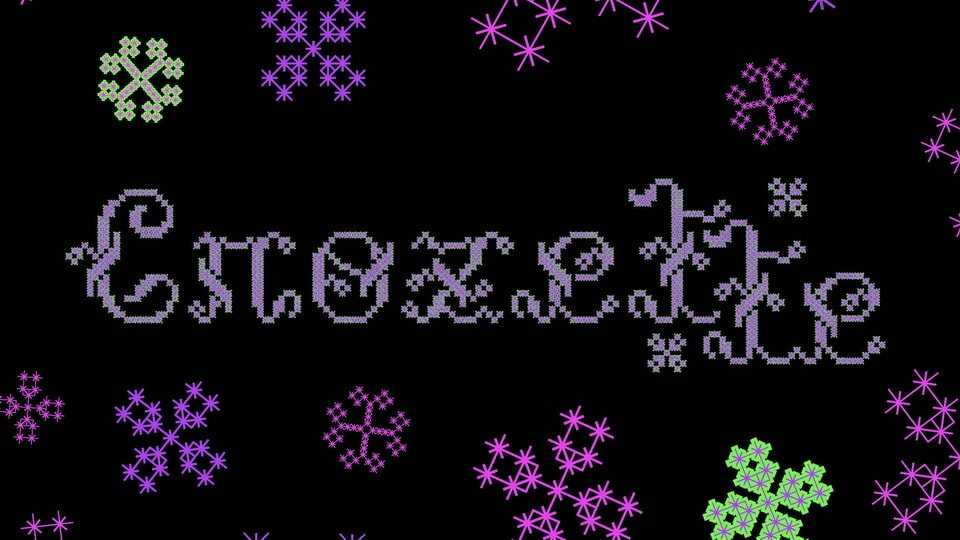
Download Crozet·te font, an inclusive and flowery typeface, inspired by cross-stitch embroidery. With the desire to take these traditional embroidered letters in order to give them new life for original and committed creations, the Crozet·te was designed mainly for titlings and short texts.